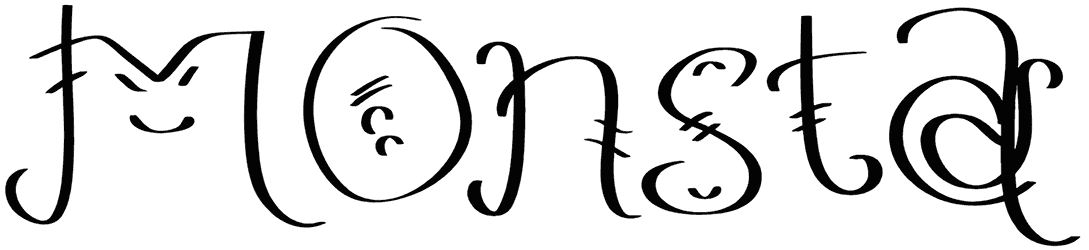
Monsta Font
Monsta is a whimsical font that is masterfully created with full details, thus conveying a sense of eerie, jauntiness, personalization, and tenderness to the audience’s minds and grabbing their attention immediately. Since it comes with well-rounded and crooked characters, it would suit a wide set of graphic content including illustrations, book covers, graffiti, menus, or book covers.